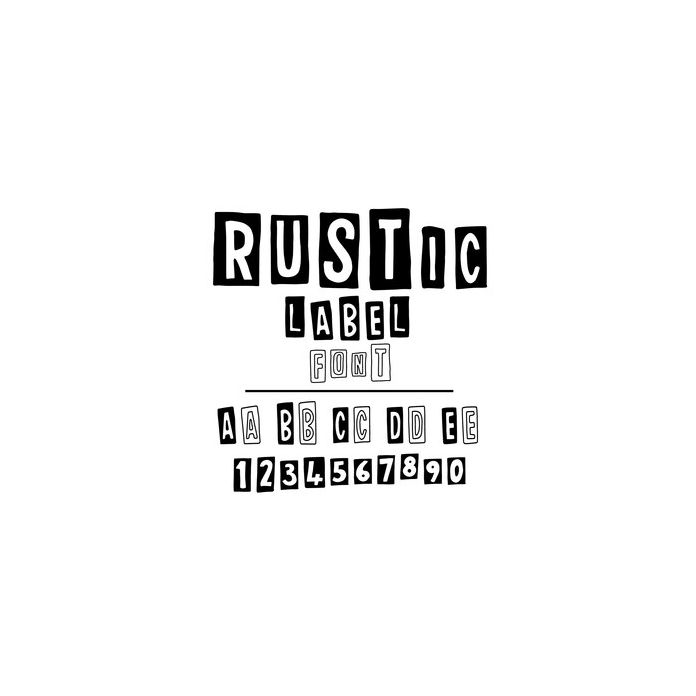
Rustic Label Font
Rustic Label Font 26 Hand Drawn Rustic Labels in solid and outline - all allocated to upper and lower case letters, numbers and blank tiles.